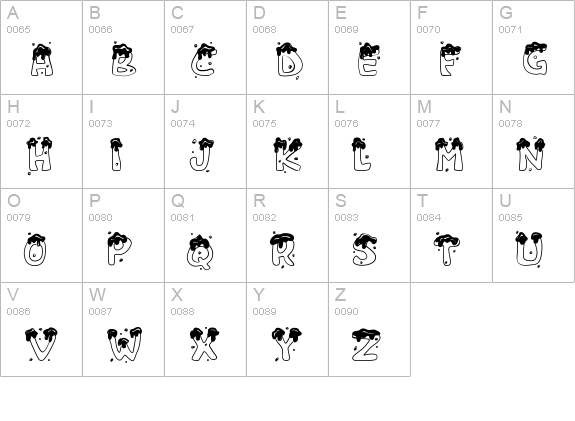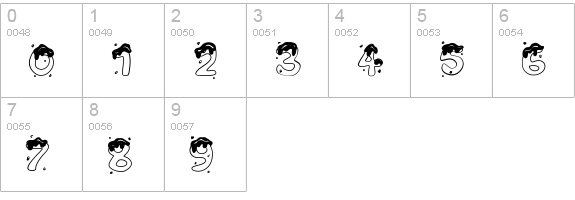
PWChristmascandies Font Details
PWChristmascandies font is a delightful and festive typeface that captures the essence of the holiday season. With its whimsical and playful design, this font brings a touch of cheer and merriment to any project. The unique shapes and intricate details of each letter evoke the nostalgia of traditional Christmas candies, adding a sweet and joyful element to your designs. What makes PWChristmascandies font even more special is that it is freely available to download at FontsMarket.com. This means that you can easily access and use this charming font without any cost. Whether you are creating holiday-themed graphics, designing greeting cards, or adding a festive touch to your website, PWChristmascandies font is the perfect choice to spread the Christmas spirit. The versatility of this font allows it to be used in various mediums, including print and digital designs. Its high-quality resolution ensures that every curve and flourish is crisp and clear, enhancing the overall visual appeal of your project. Additionally, PWChristmascandies font supports multiple languages, making it accessible to a wide audience across different cultures and regions. With its warm and inviting aesthetic, PWChristmascandies font adds a touch of magic and nostalgia to any design. Whether you are creating holiday-themed invitations, posters, or even adding a personal touch to your Christmas newsletters, this font will instantly captivate and engage your audience. Its charming and festive letters will bring a smile to anyone's face, spreading the joy and happiness that comes with the holiday season. Download PWChristmascandies font for free at FontsMarket.com today and let your creativity shine this Christmas. Embrace the spirit of the season and infuse your designs with the enchanting essence of traditional Christmas candies. This font is the perfect tool to create captivating and memorable designs that will leave a lasting impression on your audience. So, go ahead and download this delightful font, and let the magic of PWChristmascandies font transform your designs into a winter wonderland of creativity and joy.